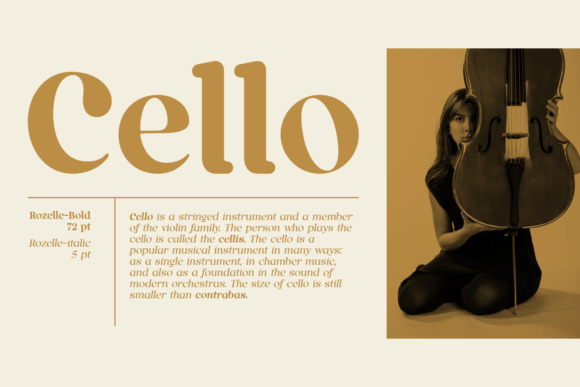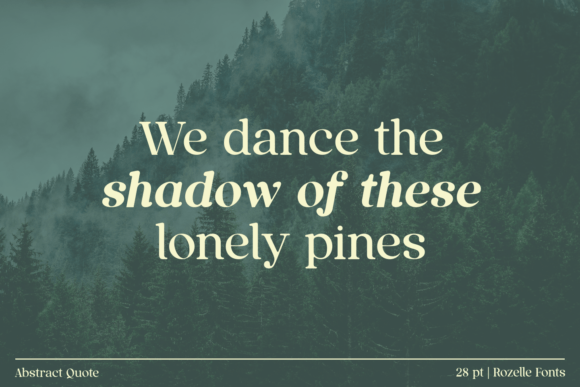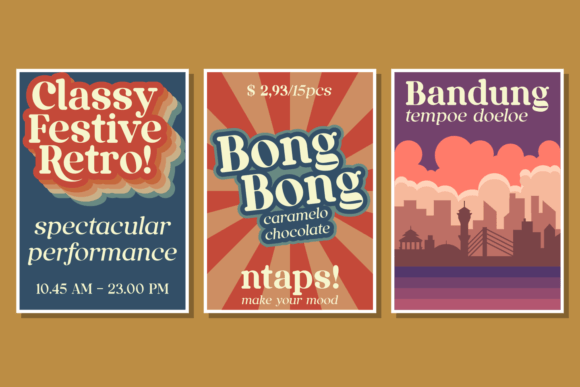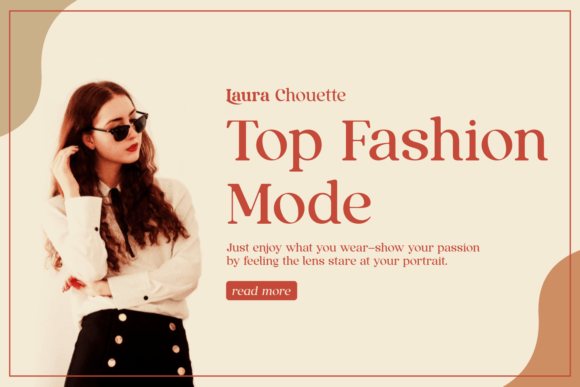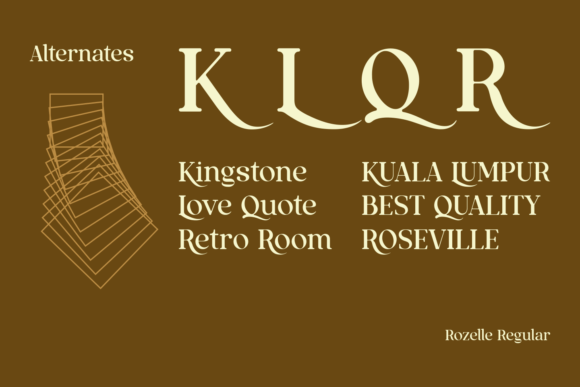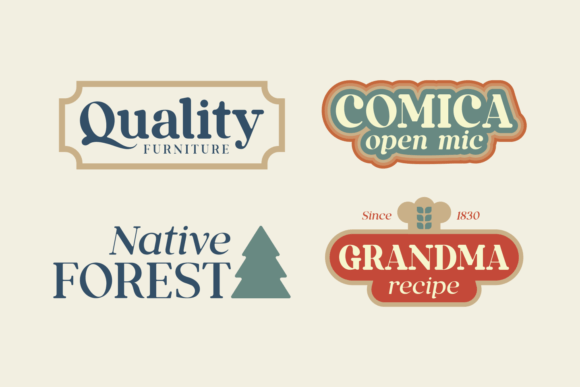
Introduction to Rozelle Font
Rozelle is a serif font family with rounded edges.
It is formed as a unique multipurpose font that you can use in vintage, retro, and modern designs This font is perfect for a variety of projects such as branding, poster displays, logo designs, magazine covers, and more.
Key Features of Rozelle Font